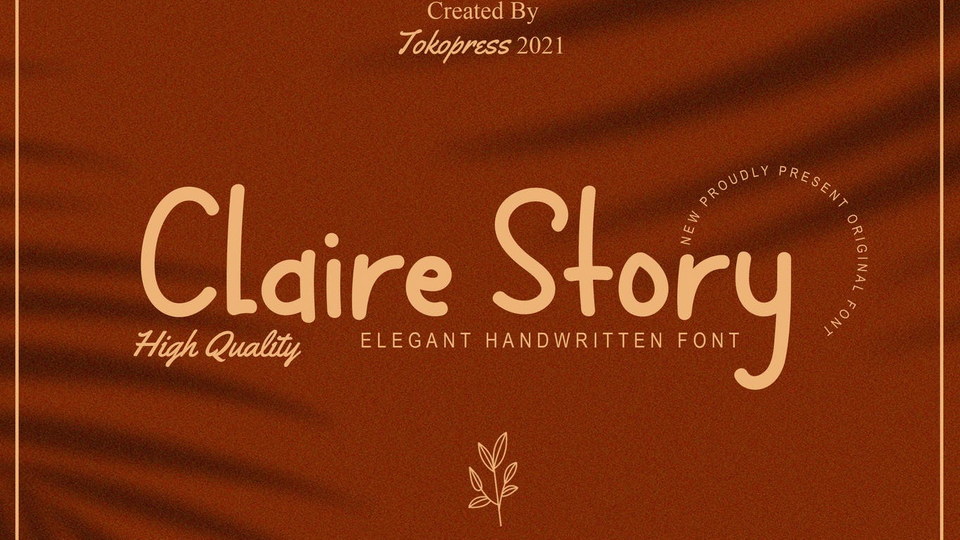
Download Claire Story font, a handwriting typeface. Light on the feel and sincere on the look, Claire Story will bring a friendliness atmosphere to the writing you created.